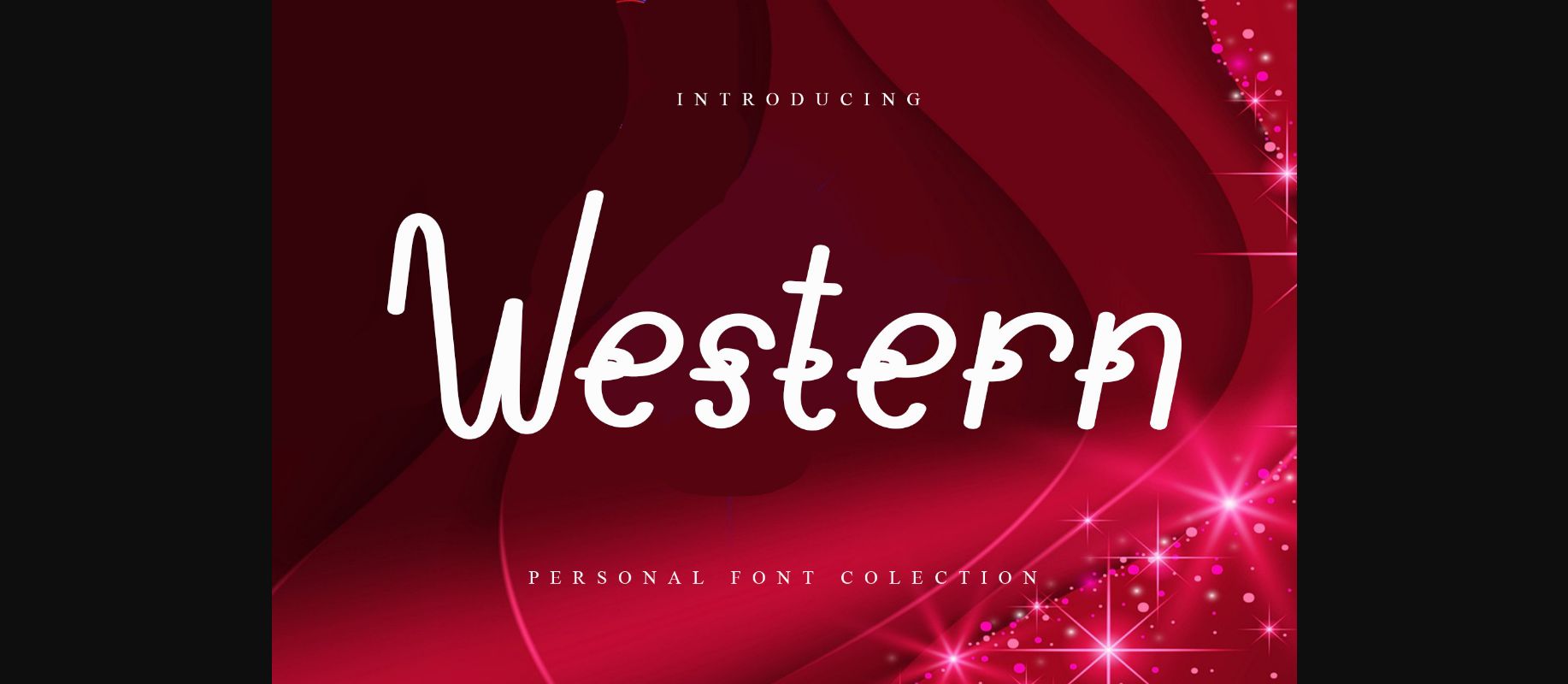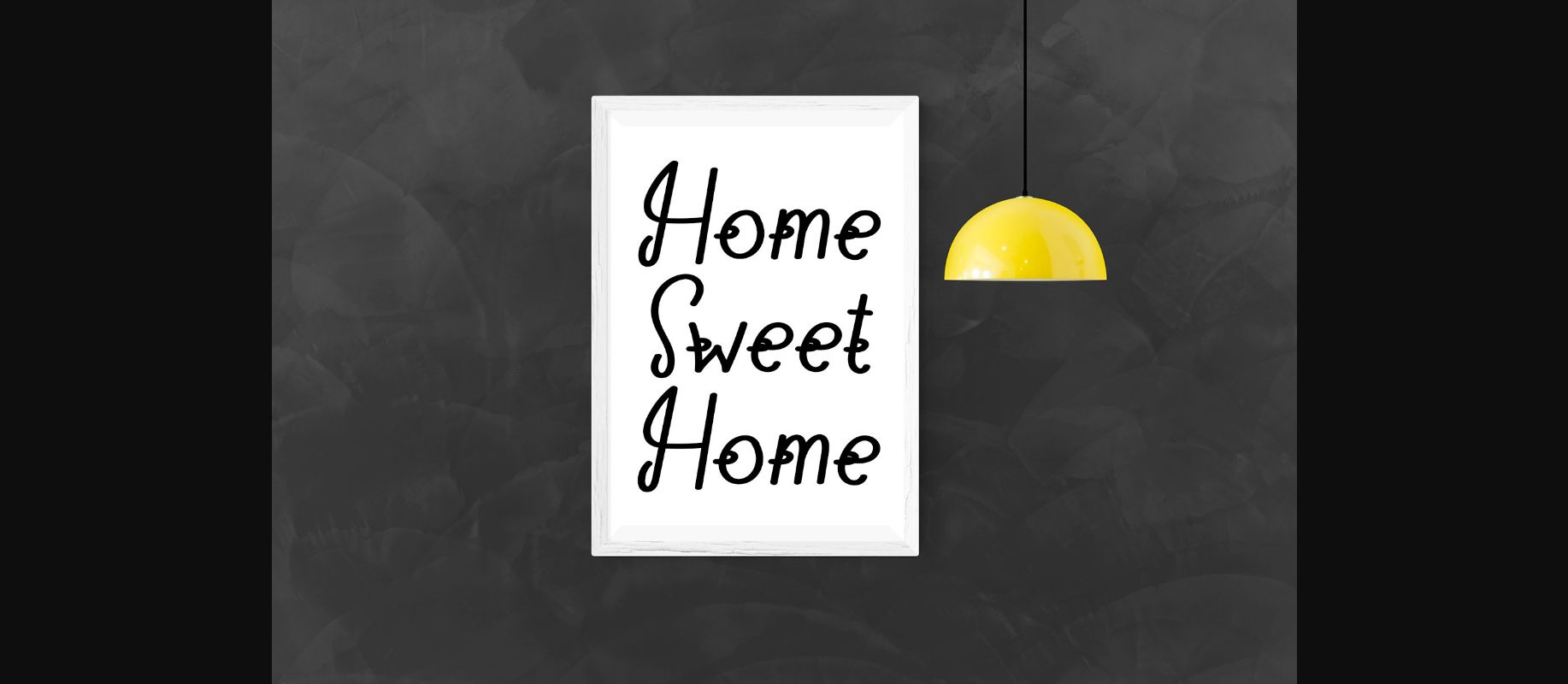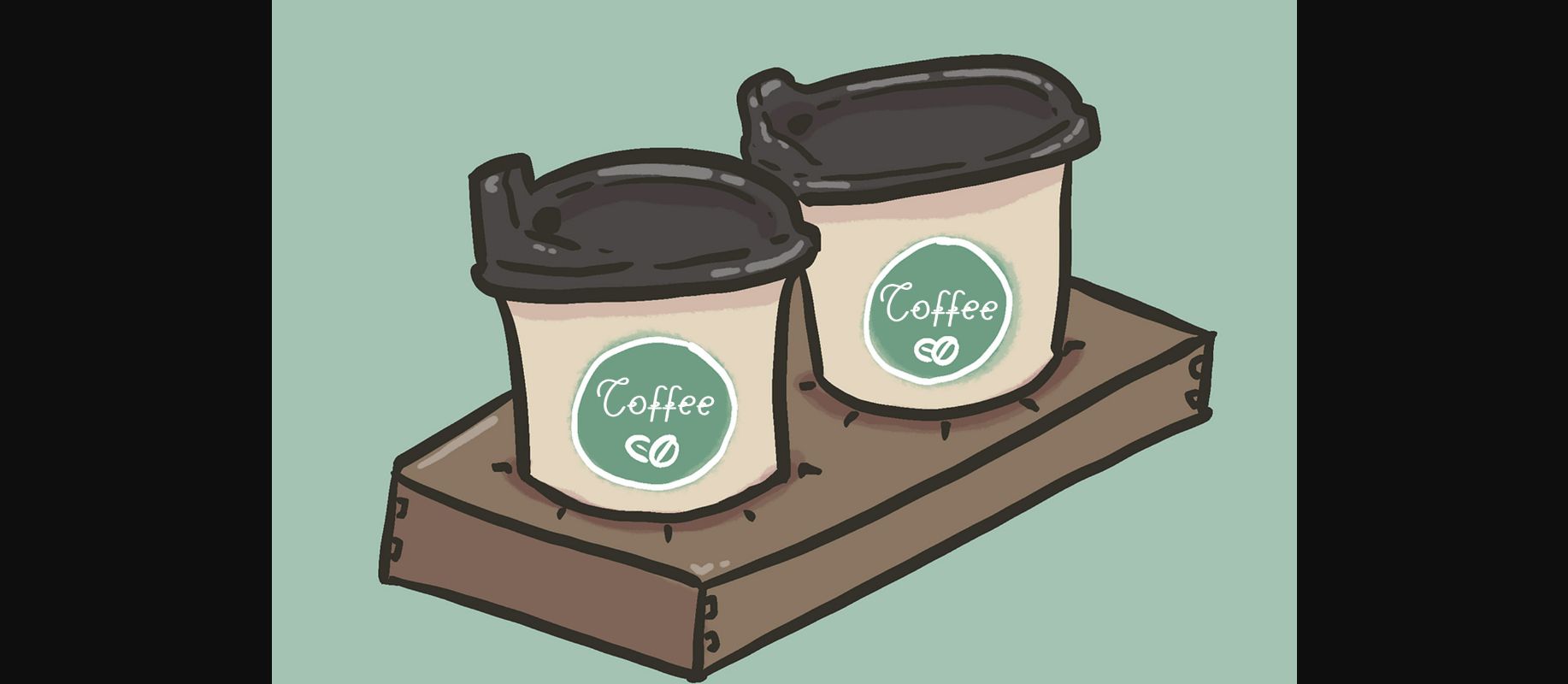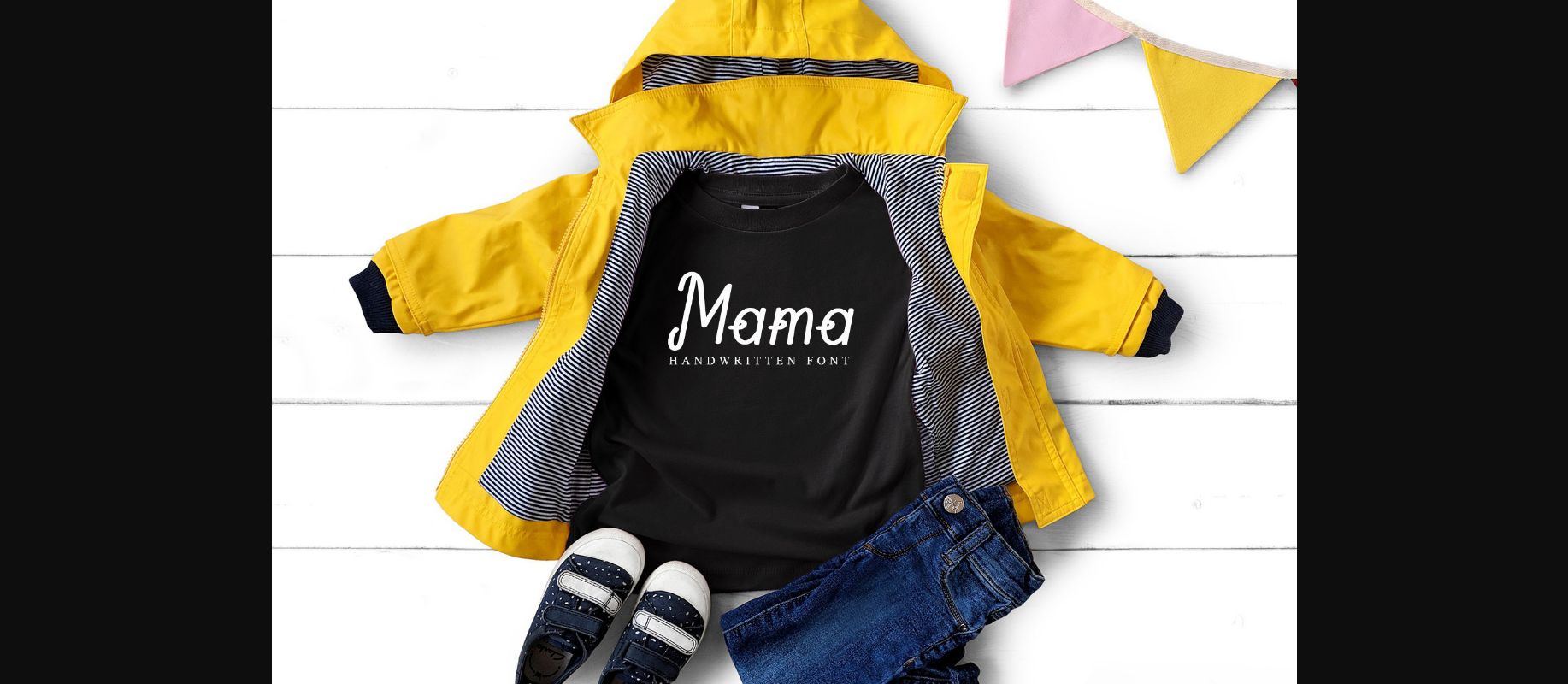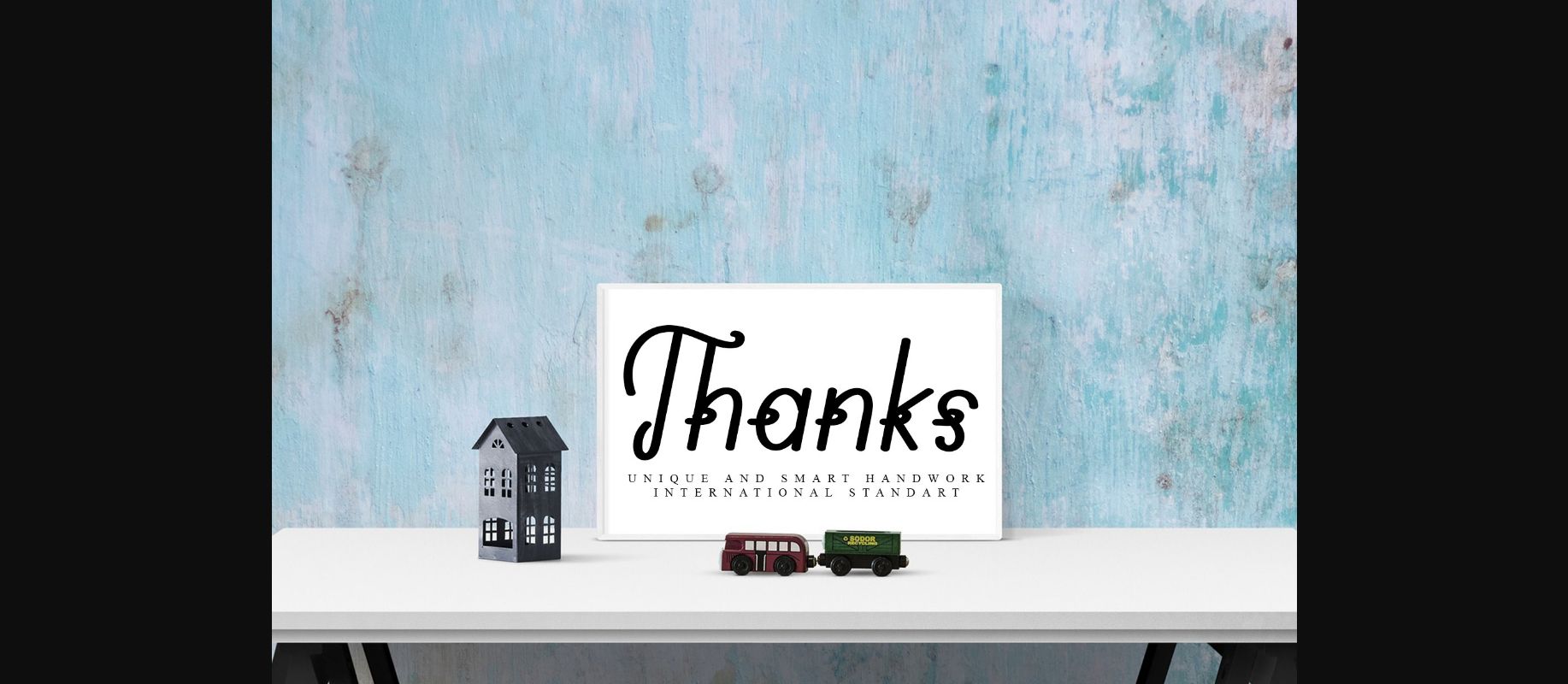
About Western Font
Western is a flowing and casual script font, perfect for adding a touch of personality to any project. Its smooth lines and gentle curves create a relaxed and friendly feel, making it ideal for invitations, cards, and other designs that require a touch of whimsy.